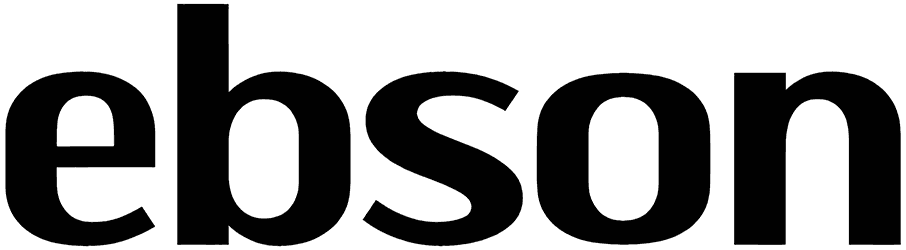
Ebson Font
With Ebson just released on the Resource Boy website, let’s hope you have a modern project to tend to. That’s the perfect excuse to be downloading this basic font right about now. With numbers out of the pictures, you’ve only got Ebson’s sturdy letters and matching punctuation marks to rely on. However, don’t ever make the mistake of thinking twice about choosing this sans serif font for your internet company logos, car tire billboards, digital marketing campaigns, and anything like that.